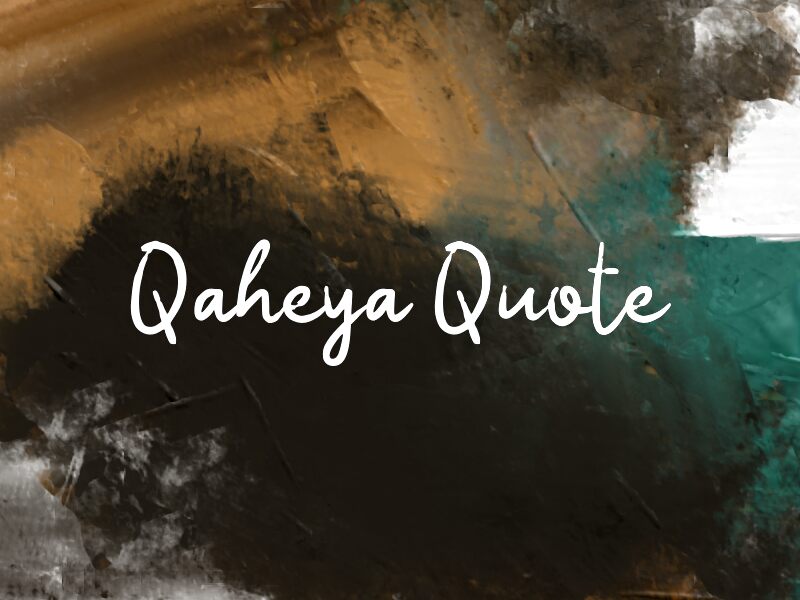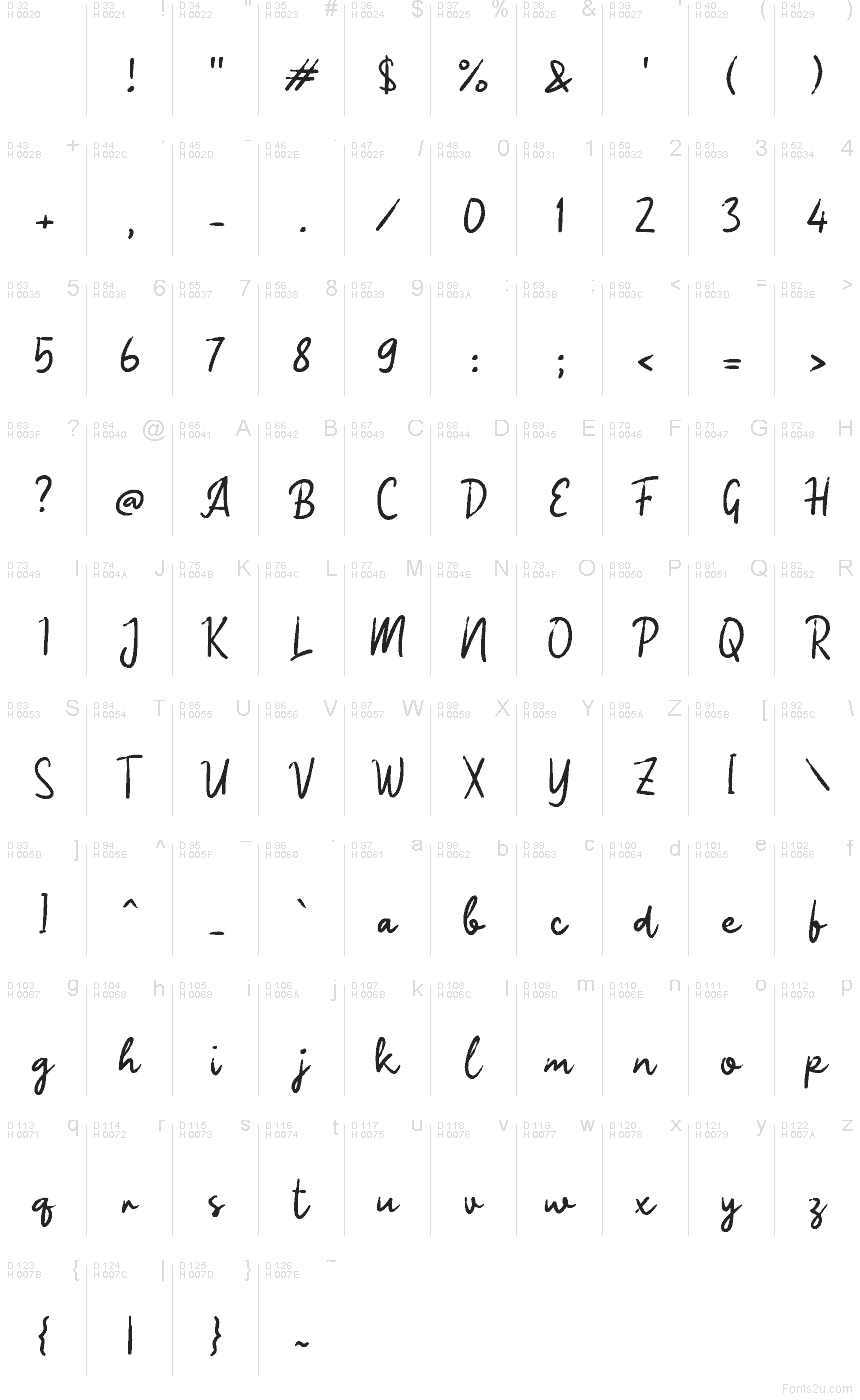
Qaheya Quote
Qaheya Quote font by wep is a free handwritten script typeface that captures the look of a quick, confident brush pen note. The letters flow with an easy, looping rhythm and a slightly textured line that feels inky rather than digital, giving quotes and short phrases a warm, spoken-out-loud energy. It’s casual but not messy, with consistent spacing that keeps even dense lines readable on screens.
Using Qaheya Quote font, your words naturally take center stage in social media graphics, inspirational quote posts, posters, greeting cards, YouTube thumbnails, and lifestyle branding. This free font shines when you keep messages short and bold, letting the script sit large with plenty of breathing room. Pair it with a clean sans serif in smaller text for tags or dates to keep layouts clear and balanced.